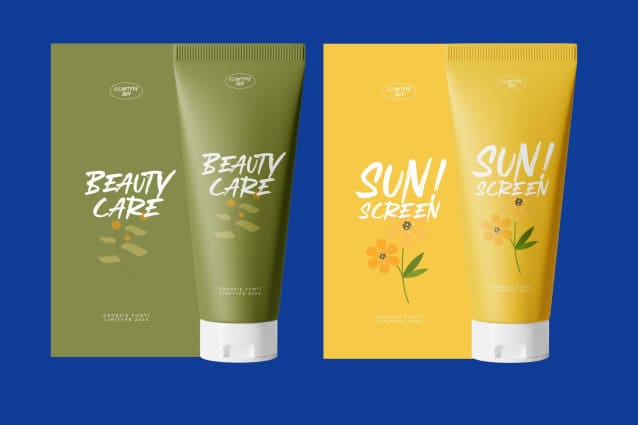
Grossie Brush Font
Grossie Brush Font, is a brush font made with natural hand strokes with a fun and modern impression, this font is suitable for your designs that need a playful, cheerful and fresh touch. You can apply grossie to large media such as posters, banners, magazine headlines, packaging, etc